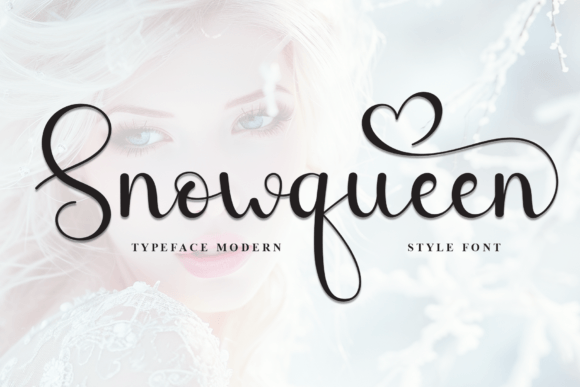
Snowqueen Font: The Ultimate Handwritten Display Font for Whimsical Designs
Are you looking for a font that can add a touch of sweetness and friendliness to your designs? Look no further than the Snowqueen Font, a charming and affable handwritten display font that embodies the perfect blend of playfulness and charm. With its adorable appeal and enchanting vibe, this font is perfect for crafting wedding invitations, cards, and any design that seeks a sprinkle of fun.
What Makes Snowqueen Font So Special?
Snowqueen Font is not just a font, but a delightful artistic expression that adds a whimsical touch to your creative projects. Its unique and playful design makes it perfect for a wide range of applications, from wedding invitations and cards to posters, flyers, and social media graphics. The font’s charming and affable nature makes it easy to read and understand, making it perfect for designs that require a personal touch.
Key Features of Snowqueen Font
- Handwritten Display Font: Snowqueen Font is a handwritten display font that is designed to add a personal touch to your designs.
- Charming and Affable: The font’s charming and affable nature makes it perfect for designs that require a touch of sweetness and friendliness.
- Playful Vibe: Snowqueen Font has a playful vibe that makes it perfect for designs that seek a sprinkle of fun.
- Adorable Appeal: The font’s adorable appeal makes it perfect for crafting wedding invitations, cards, and other designs that require a touch of whimsy.
Perfect for Whimsical Designs
Snowqueen Font is perfect for designers who want to add a touch of whimsy to their designs. Its playful and charming nature makes it perfect for a wide range of applications, from wedding invitations and cards to posters, flyers, and social media graphics. Whether you’re designing for a client or working on a personal project, Snowqueen Font is the perfect choice for anyone who wants to add a sprinkle of fun to their designs.
Use Cases for Snowqueen Font
- Wedding Invitations: Snowqueen Font is perfect for crafting beautiful and unique wedding invitations that set the tone for a special day.
- Cards: The font’s playful and charming nature makes it perfect for creating greeting cards for special occasions.
- Posters and Flyers: Snowqueen Font is perfect for creating eye-catching posters and flyers that require a touch of whimsy.
- Social Media Graphics: The font’s adorable appeal makes it perfect for creating social media graphics that require a touch of fun and playfulness.
Why Choose Snowqueen Font?
There are many fonts available that can add a touch of sweetness and friendliness to your designs. However, Snowqueen Font stands out from the rest due to its unique and playful design. Here are some reasons why you should choose Snowqueen Font for your next project:
Reasons to Choose Snowqueen Font
- Unique Design: Snowqueen Font has a unique and playful design that sets it apart from other fonts.
- Easy to Read: The font’s charming and affable nature makes it easy to read and understand.
- Versatile: Snowqueen Font is perfect for a wide range of applications, from wedding invitations and cards to posters, flyers, and social media graphics.
- High-Quality: The font is designed to deliver high-quality results that will make your designs stand out.
Snowqueen Font is a charming and affable handwritten display font that embodies sweetness and friendliness. With its adorable appeal and playful vibe, this font is perfect for crafting wedding invitations, cards, and any design that seeks a sprinkle of fun. Whether you’re a designer or a DIY enthusiast, Snowqueen Font is the perfect choice for anyone who wants to add a touch of whimsy to their designs.
- What is Snowqueen Font?: Snowqueen Font is a charming and affable handwritten display font that embodies sweetness and friendliness.
- What is Snowqueen Font used for?: Snowqueen Font is perfect for crafting wedding invitations, cards, and any design that seeks a sprinkle of fun.
- Is Snowqueen Font easy to read?: Yes, Snowqueen Font is easy to read and understand due to its charming and affable nature.